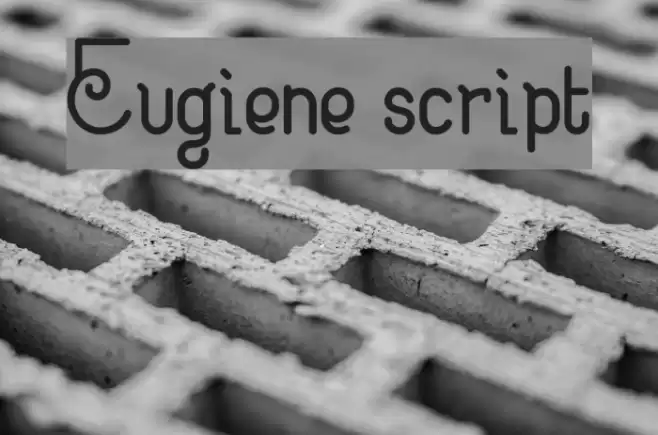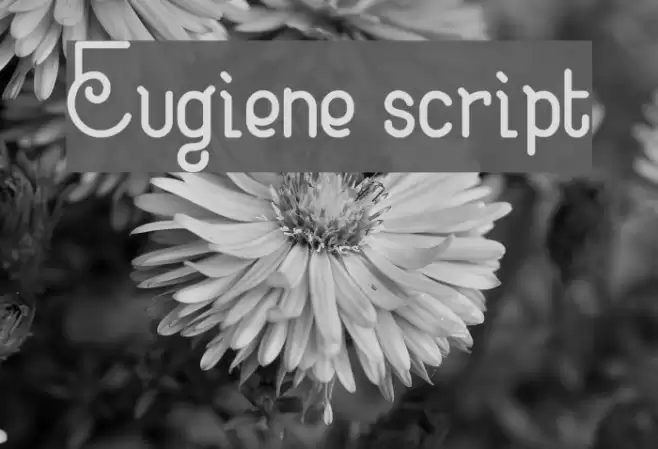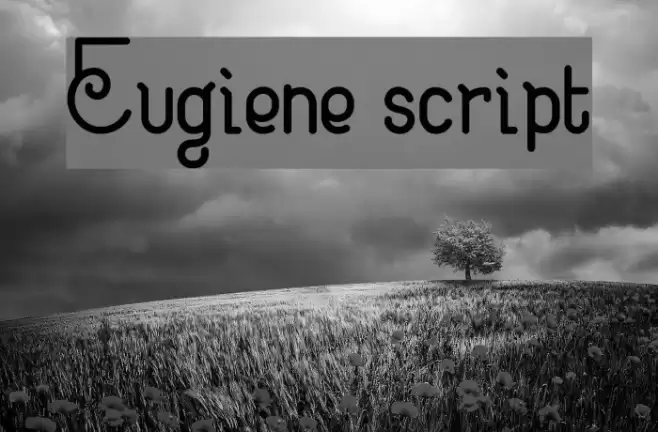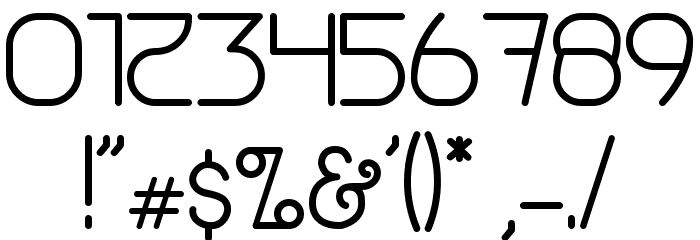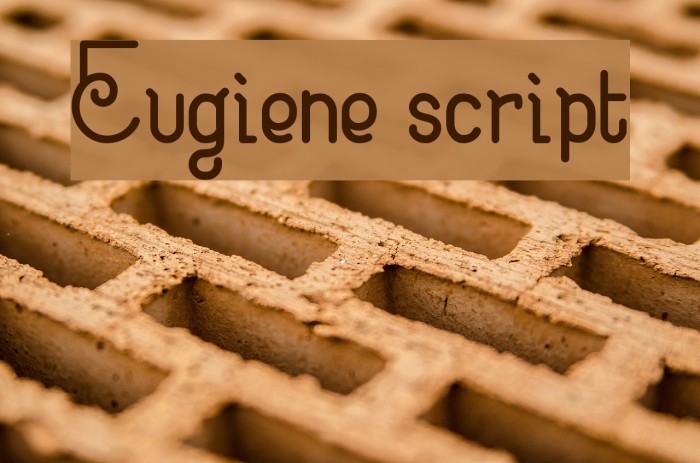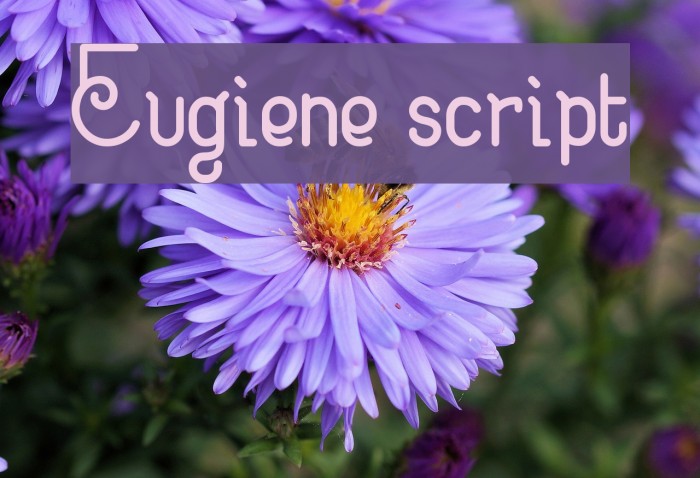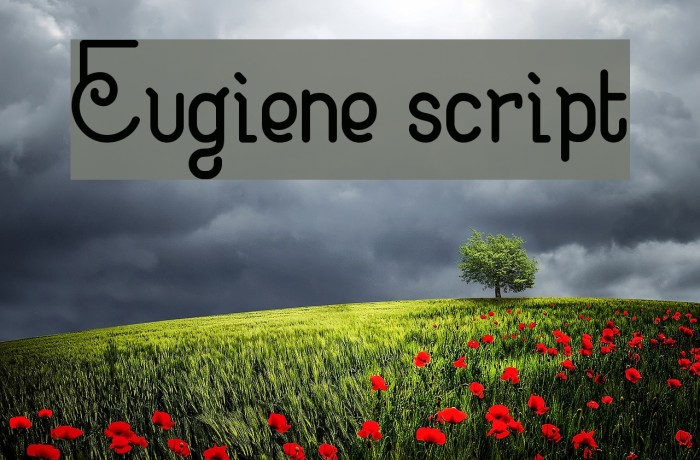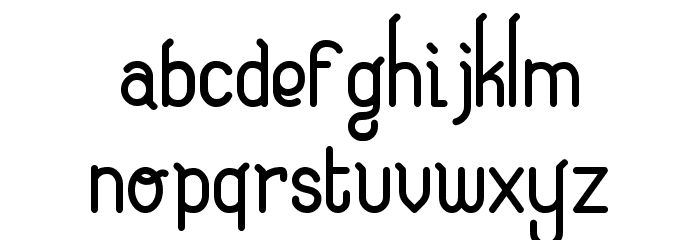
Eugiene script Font
Eugiene script Description
This font features a unique and playful design with a decorative flair. The uppercase letters have a whimsical quality, with loops and curves that add a sense of movement and creativity. The lowercase letters maintain a similar style, offering a cohesive look across the alphabet. Numbers and special characters are designed to match the playful aesthetic, making them suitable for creative projects. The font's overall appearance is both modern and artistic, making it ideal for projects that require a touch of personality and flair.
A playful and decorative font with whimsical loops and curves from Decorative fonts.
- Font: Eugiene script